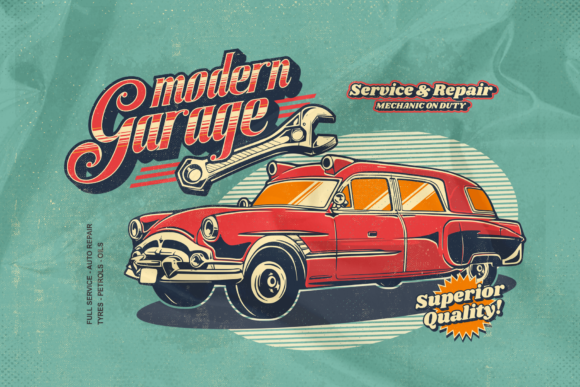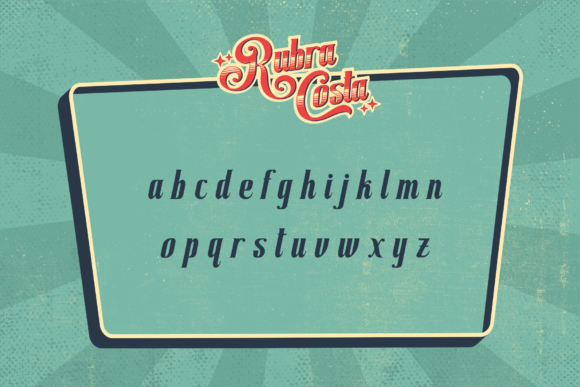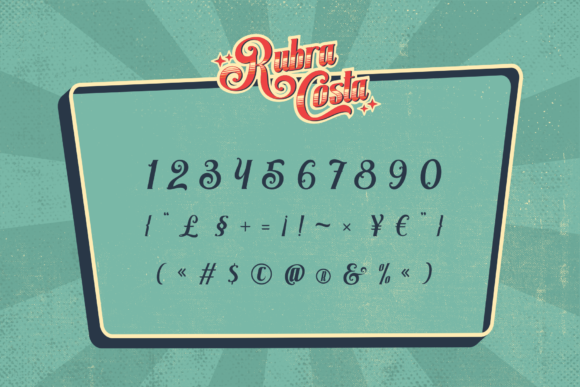
Rubra Costa Font
Rubra Costa is a vintage styled and thick lettered handwritten font, crafted to give your headlines and logotype projects a stylish touch. This font reads as strong, confident, and dynamic and can add tons of nostalgic character to your designs.